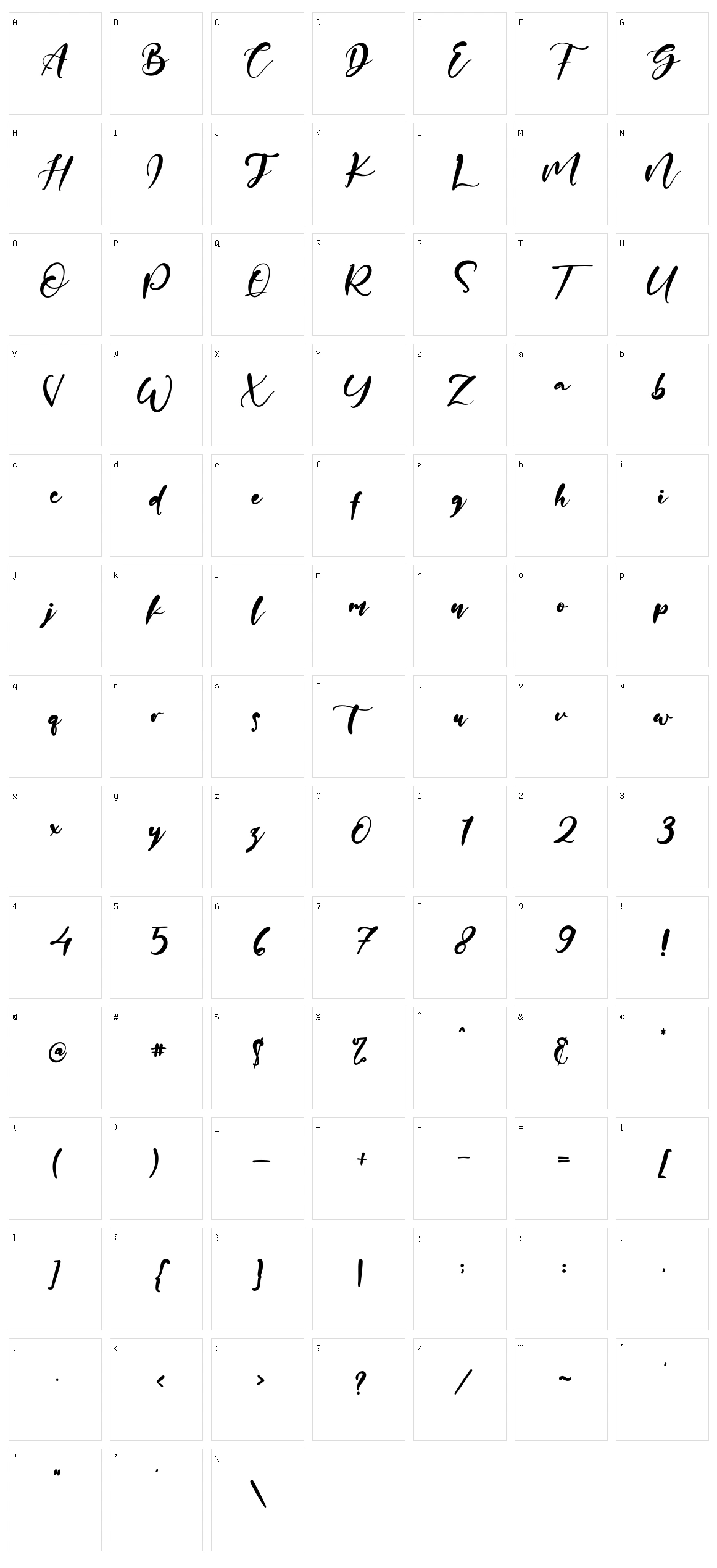
The free font Kindness Abstract is carefully designed by Kong Font, showcasing a thoughtful balance of creativity and usability and falls under the Script font style. When you download the ZIP file, it contains only 60 KB of font files, making it lightweight and quick to download. Please review the license details below to understand permitted usage and distribution rights. If license information is not available, we recommend using this font for personal projects only or contacting the author directly for commercial usage permissions.